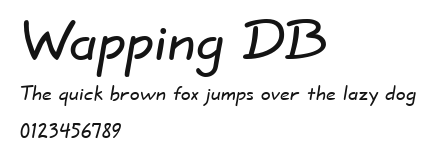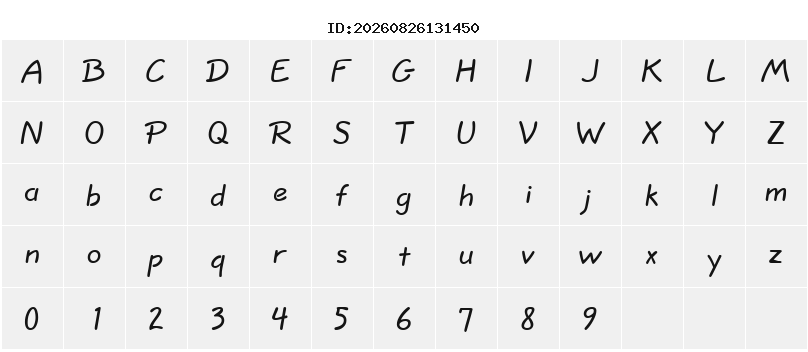
• Font Name: Wapping DB
• Full Font Name: Wapping-Regular DB
Wapping DB.ttf is a modern, elegant sans-serif font designed for ultimate readability and visual harmony. Perfect for branding, headlines, web design, and print materials.